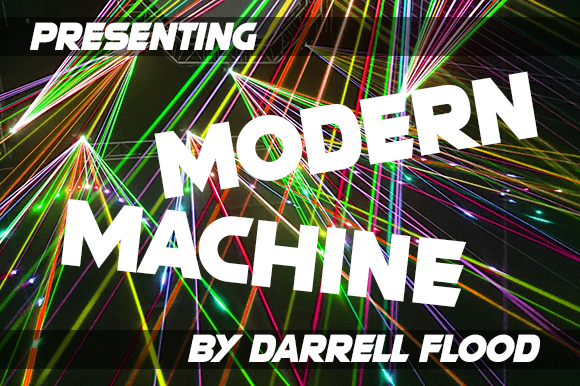
Introduction to Modern Machine Font
As a designer, you’ve probably experienced that moment of inspiration when a new font sparks a creative project. For me, it was the first time I laid eyes on the Modern Machine Font. Its bold, high-impact sans-serif design and subtle angles gave my project an instant modern edge.
I was immediately drawn to its high readability, perfect for titles, posters, and events. But what truly sets the Modern Machine Font apart is its versatility. Whether you’re working on a high-quality design for a client or a personal creative project, this font is a valuable resource that can elevate your design to the next level.
With its transparent background and free download option, the Modern Machine Font is an essential design resource for any creative professional. In this article, we’ll take a closer look at what makes this font so special and how you can incorporate it into your next project.
Key Features of Modern Machine Font
- High-quality font design with a sleek, futuristic aesthetic, perfect for creative projects and design resources.
- Perfect for use in creative projects, such as graphic design, digital art, and UI/UX design, as a design resource.
Honest Review: Modern Machine Font
I recently stumbled upon the Modern Machine Font and I must say, it’s a great addition to my design resources. The font is a high quality sans-serif typeface that’s perfect for modern creative projects.
- ✨ High-quality design: The Modern Machine Font has a sleek and modern look that’s perfect for contemporary design projects.
- ✨ Versatile: The font is suitable for a wide range of creative projects, from logos to digital products.
- ⚠️ Limited style options: While the Modern Machine Font is available in several weights, the style options are limited compared to other fonts.
- ⚠️ Not ideal for complex text: The font’s simplicity may make it difficult to use for complex or large blocks of text.
Overall, I’m impressed with the Modern Machine Font. It’s a great design resource for anyone looking for a modern and high-quality sans-serif typeface. While it may have some limitations, it’s a great addition to any designer’s toolkit.
Use Modern Machine Font on a transparent background to create a sleek and modern look. Experiment with different font sizes and colors to add visual interest to your design. Modern Machine Font is a versatile font that can be used for a variety of creative projects, from logos to brochures.
Modern Machine Font is perfect for a variety of design projects, including logos, brochures, business cards, and websites. It’s a high-quality font that’s sure to add a touch of modernity to your design. With its transparent background and free download, Modern Machine Font is a valuable design resource that’s sure to be a hit with designers and non-designers alike.